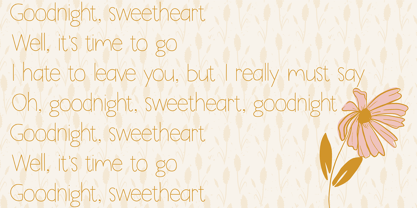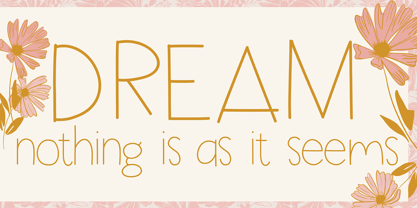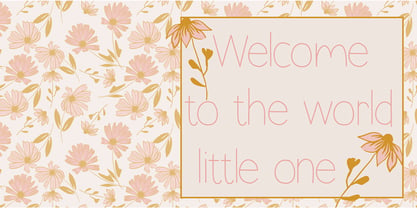
Goodnight Sweetheart
by Miss Kate Designs
The Goodnight Sweetheart Font Family was designed by and published by Miss Kate Designs. Goodnight Sweetheart contains 1 styles. More about this family
Goodnight Sweetheart is a cute, handwritten font suitable for book cover, t-shirt, tote bags, merchandise, books, poster, title, quotes, gift cards, invitations, and more!